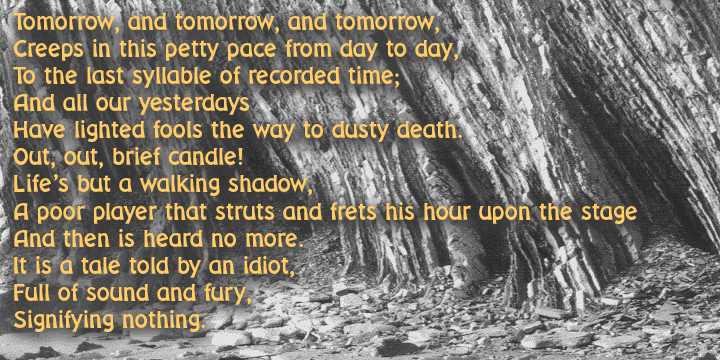
Iturritxu Font is perfect for Basque cultural projects, Spanish heritage materials, European festival promotions, traditional restaurant branding, cultural exhibition signage, regional tourism campaigns, ethnic celebration communications, and authentic cultural preservation efforts.
This distinctive decorative typeface is exciting because it honors the unique linguistic heritage and cultural identity of the Basque region through carefully crafted letterforms that celebrate the ancient traditions and proud independence of Euskera culture.
The Iturritxu Font family includes regular and ornamental weights with cultural decorative elements, traditional pattern alternates, and Basque-inspired flourishes that enhance the authentic regional atmosphere of any cultural heritage design project.
Cultural and authentic, Iturritxu Font Free Download preserves the rich linguistic heritage and cultural identity of the Basque people through respectful typographic interpretation. This remarkable font embodies the ancient wisdom and fierce independence that defines Basque culture, making it invaluable for projects celebrating European linguistic diversity and regional heritage. Its distinctive character reflects the mountainous landscape and maritime traditions that shaped this unique culture, resonating with audiences who appreciate authentic cultural expression and linguistic preservation. Perfect for cultural centers and heritage tourism, this font ensures your message carries the dignity and authenticity that Basque culture deserves while honoring the linguistic traditions that connect modern communities with ancient roots. Whether used for cultural festivals or heritage education materials, Iturritxu Font Free Download delivers the cultural sensitivity and regional authenticity essential for meaningful representation of Europe's most ancient surviving language and the proud people who preserve this irreplaceable cultural treasure.